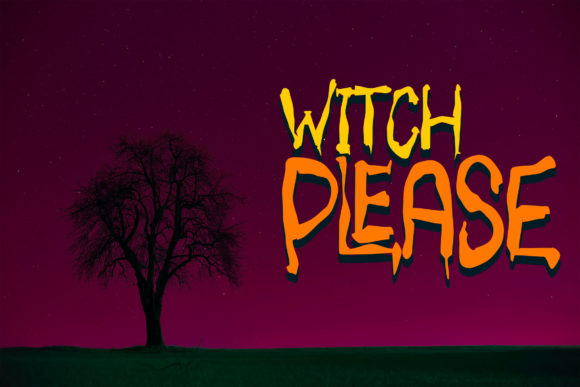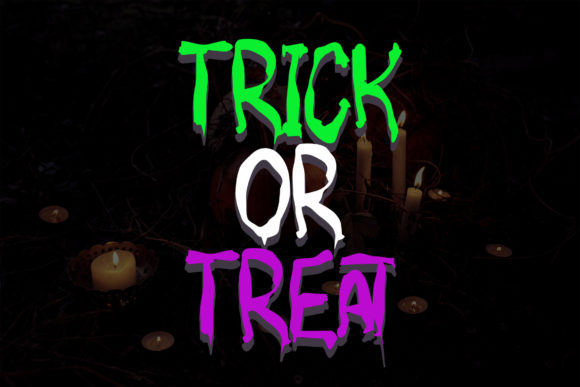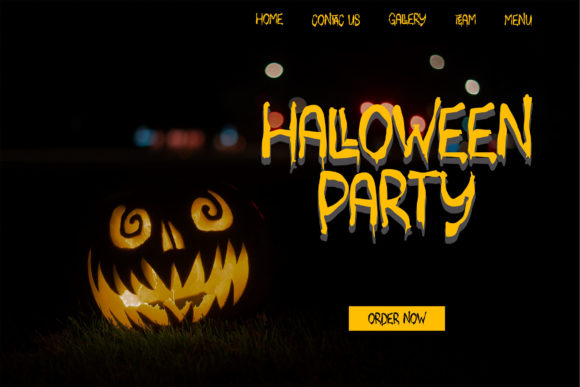
Introduction to Monsteria Font
Have you ever been working on a creative project and stumbled upon that one perfect font that makes all the difference? For me, it was the eerie glow of a dark night sky, and the sound of creaking trees in the wind. It was then that I knew I needed a font that could capture the essence of Halloween – something that would transport my designs to a world of spooky wonder. That’s when I discovered the Monsteria Font.
This hauntingly beautiful display font is a game-changer for designers looking to add a touch of darkness to their high-quality designs. With its PUA encoded features, accessing all glyphs and swashes is a breeze, making it the perfect design resource for any creative project.
Key Features of Monsteria Font
- High-quality, professional font design suitable for creative projects and design resources.
- Features a transparent background, allowing for seamless integration with various design elements.
- Unique characteristics: The font’s bold, modern design makes it perfect for use in logos, branding materials, and other creative projects.
Honest Review: Monsteria Font
As a designer, I’m always on the lookout for high-quality design resources to elevate my creative projects. Recently, I had the chance to try out the Monsteria Font, and I must say it’s been a game-changer for my designs. ✨
Here are some of the things that work well with the Monsteria Font:
- High-quality design: The font is incredibly well-designed, with crisp lines and smooth typography.
- Transparency: The font has a transparent background, which makes it easy to use on any background.
While the Monsteria Font is an amazing resource, there are a few limitations to be aware of: ⚠️
- Limited language support: The font may not be suitable for projects that require extensive language support.
- No bold or italic variants: While the font is well-designed, it’s missing some basic variants like bold and italic.
Overall, I’m thoroughly impressed with the Monsteria Font. It’s a high-quality design resource that’s perfect for creative projects. I highly recommend giving it a try and see how it can elevate your designs!
Design Tips and Tricks
For the best results, use the Monsteria Font on a transparent background, allowing the text to stand out. Experiment with different font sizes and styles to create a visually appealing design. You can also use the font in conjunction with other design resources to create a unique and creative project.
The Monsteria Font is ideal for use in a variety of creative projects, including:
- Graphic design and branding
- Print design and marketing materials
- Illustrations and artwork
Getting the Most Out of Monsteria Font
To get the most out of the Monsteria Font, experiment with different font sizes, styles, and combinations with other design resources. You can also use the font in conjunction with other design elements, such as images and shapes, to create a unique and eye-catching design.